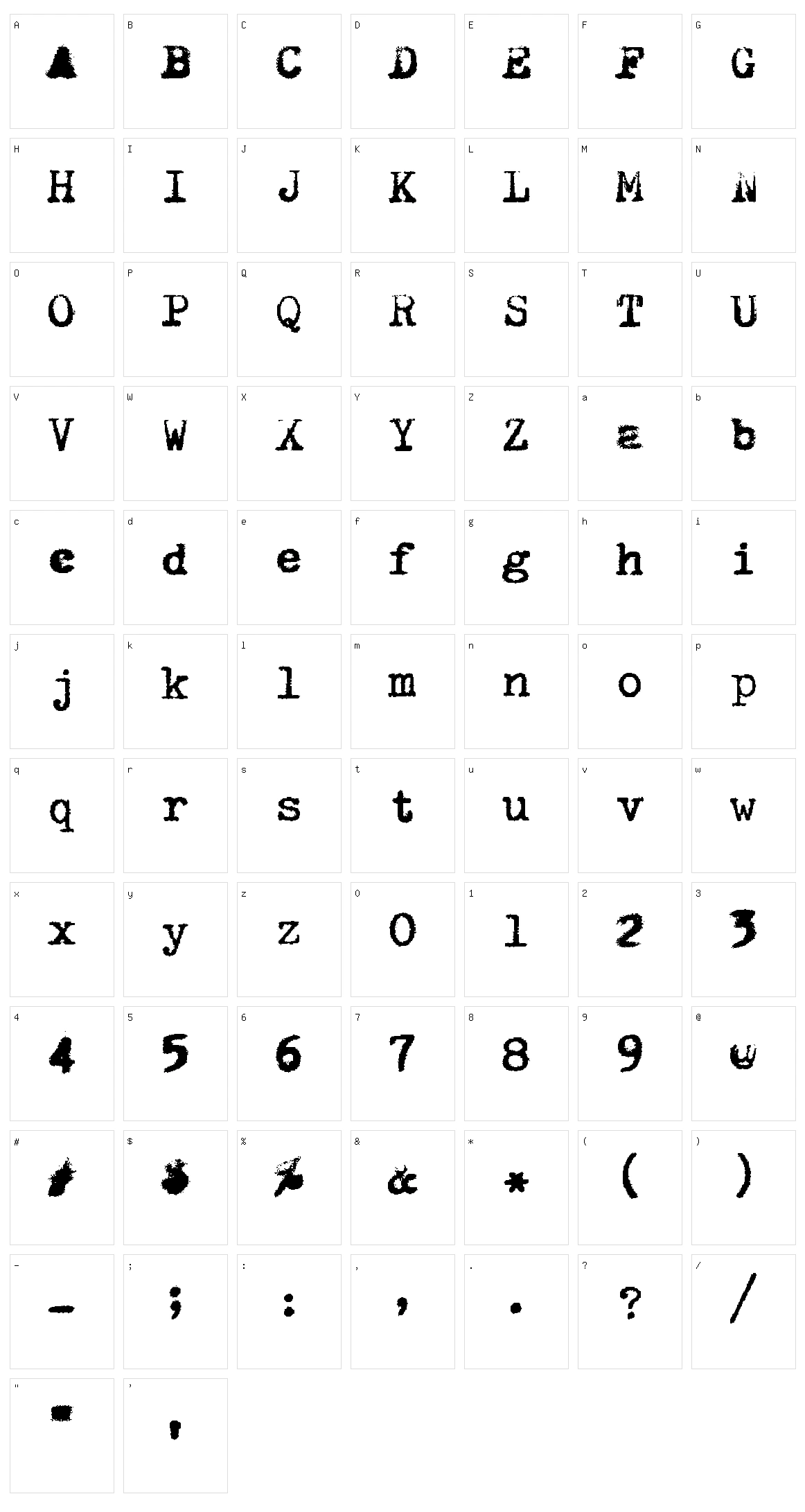
The free font Hermes Rocket is carefully designed by Xerographer Fonts, showcasing a thoughtful balance of creativity and usability and falls under the Typewriter font style. When you download the ZIP file, it contains only 23.5 KB of font files, making it lightweight and quick to download. Please review the license details below to understand permitted usage and distribution rights. If license information is not available, we recommend using this font for personal projects only or contacting the author directly for commercial usage permissions.